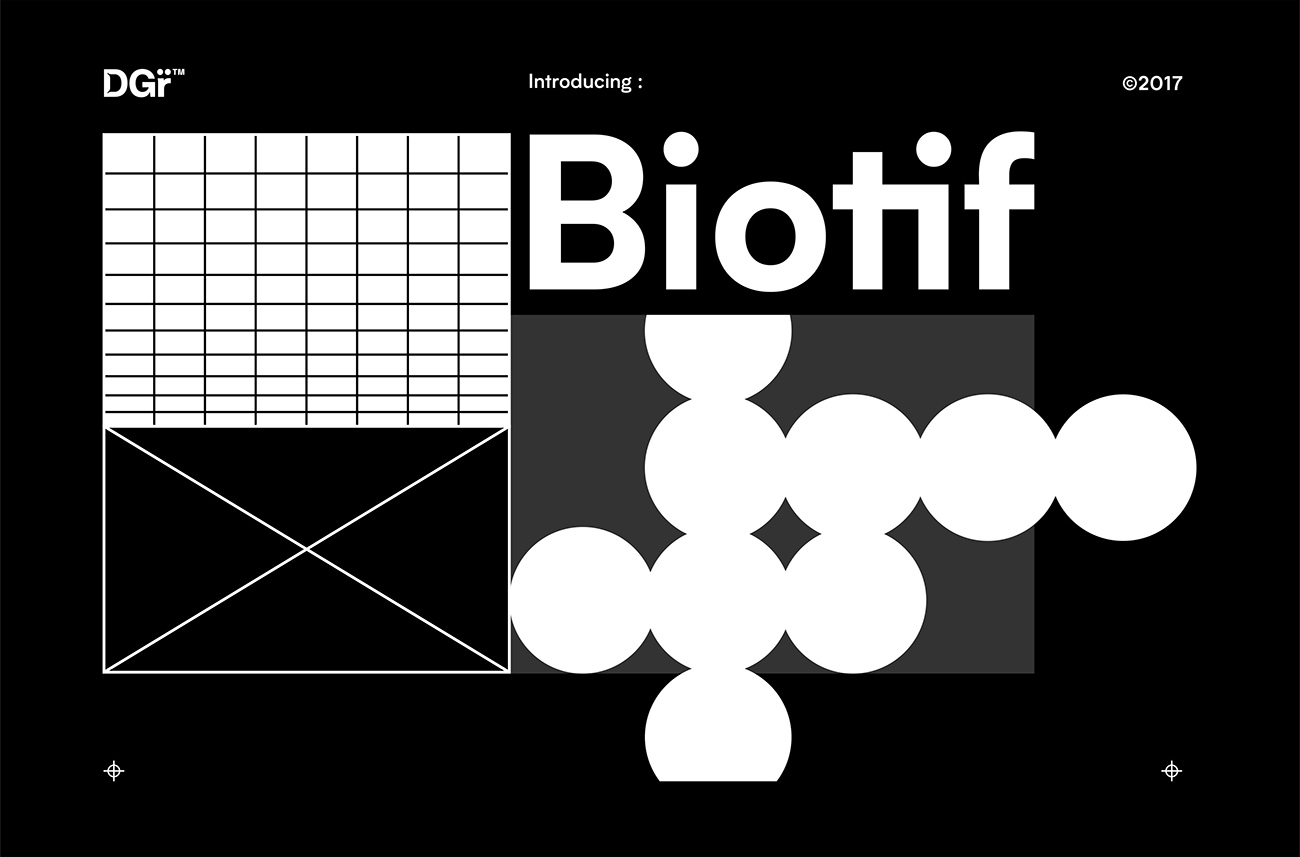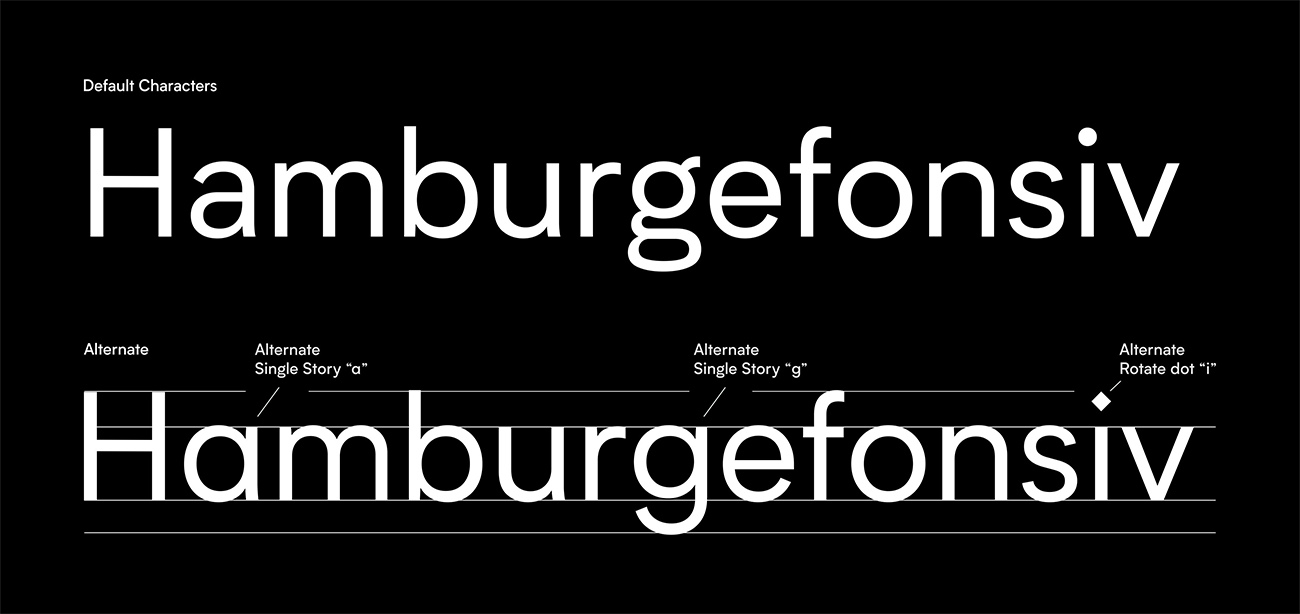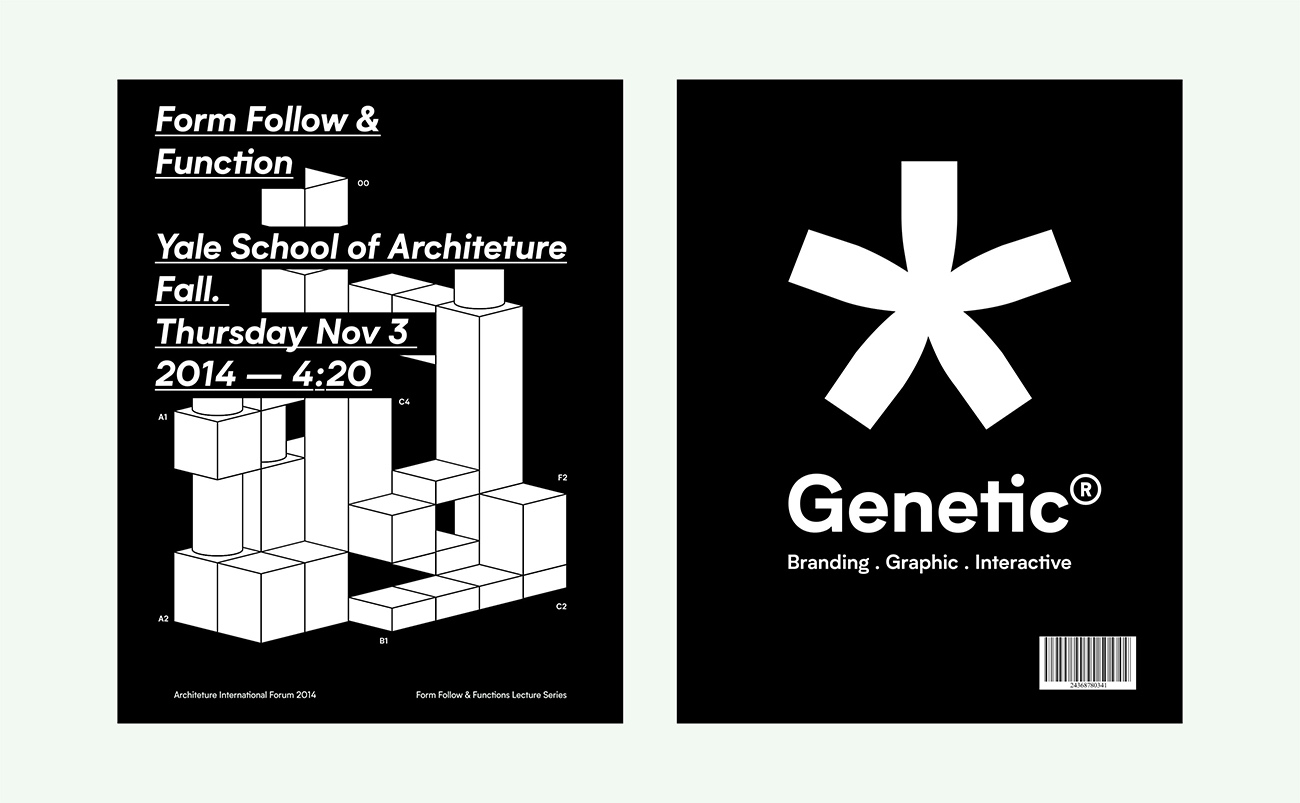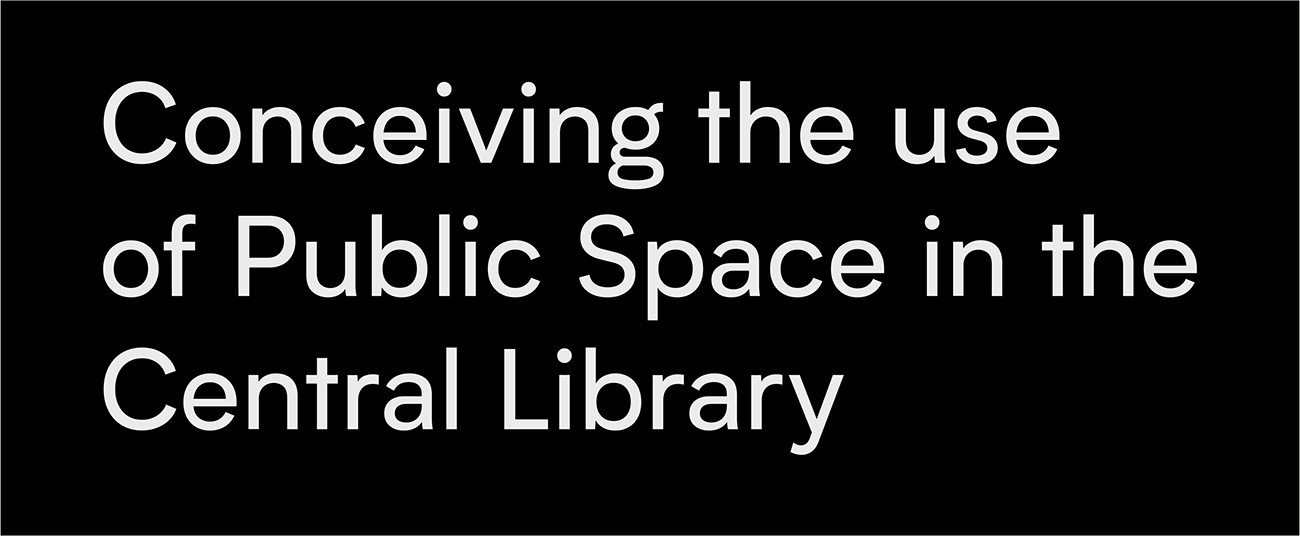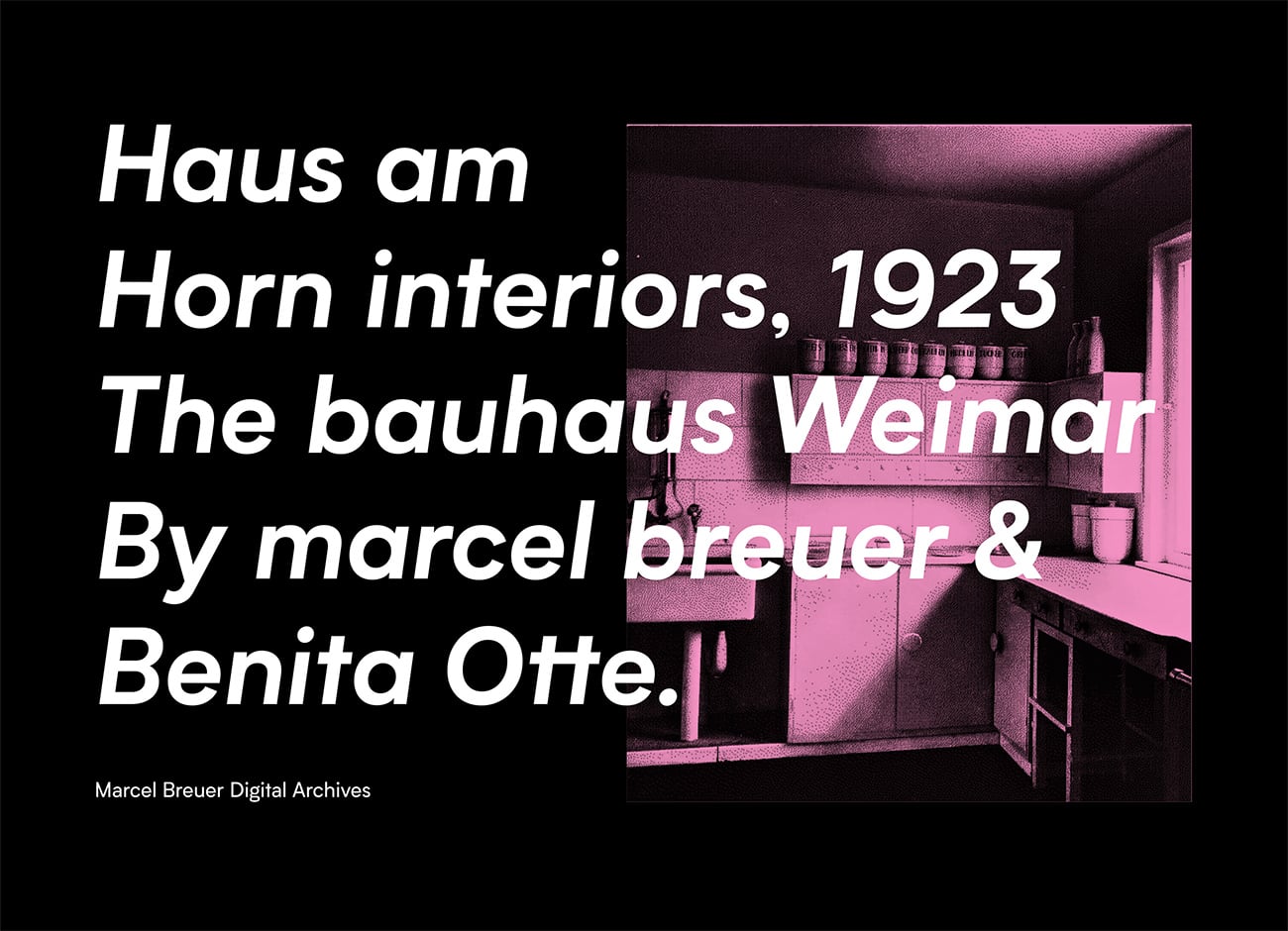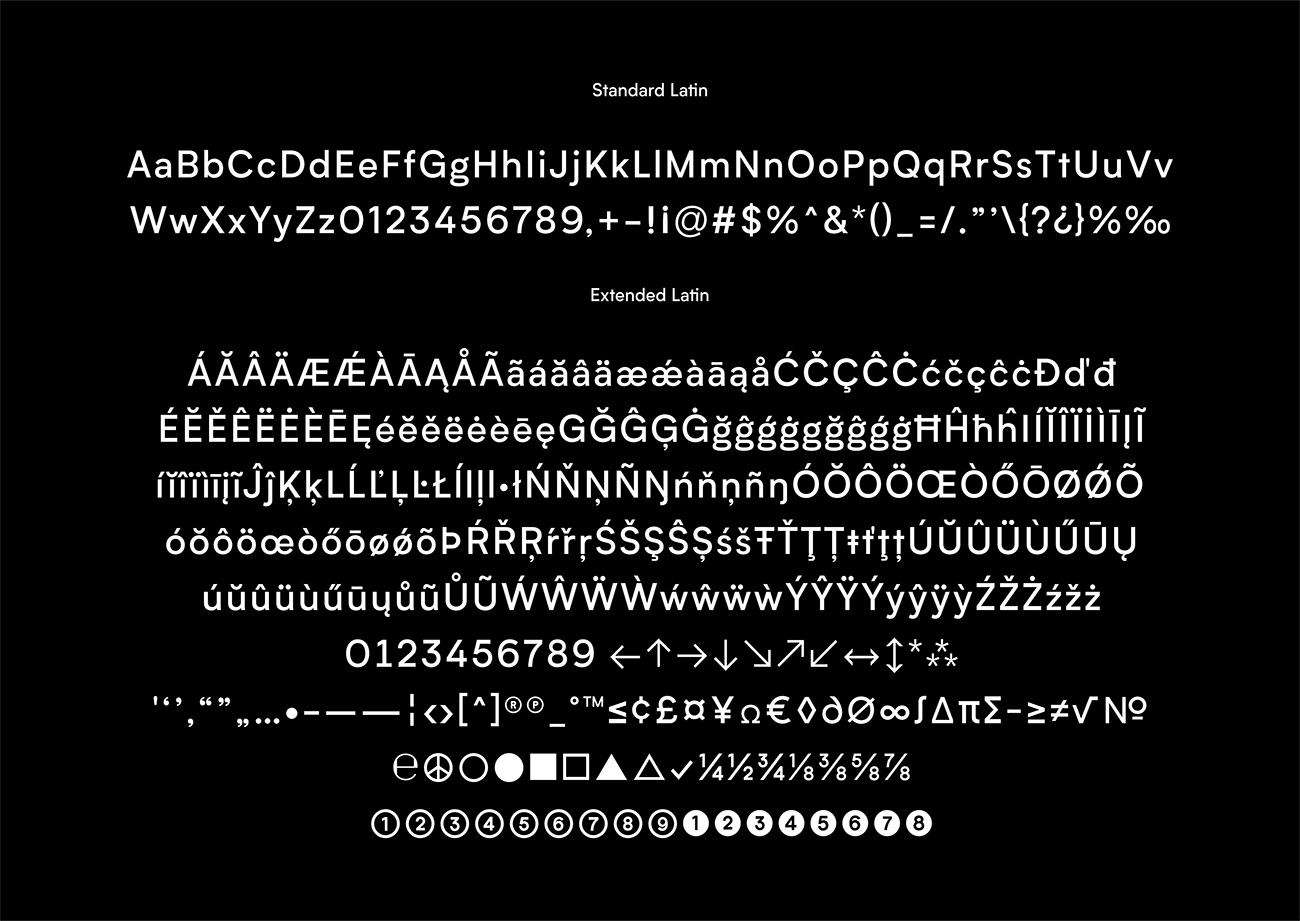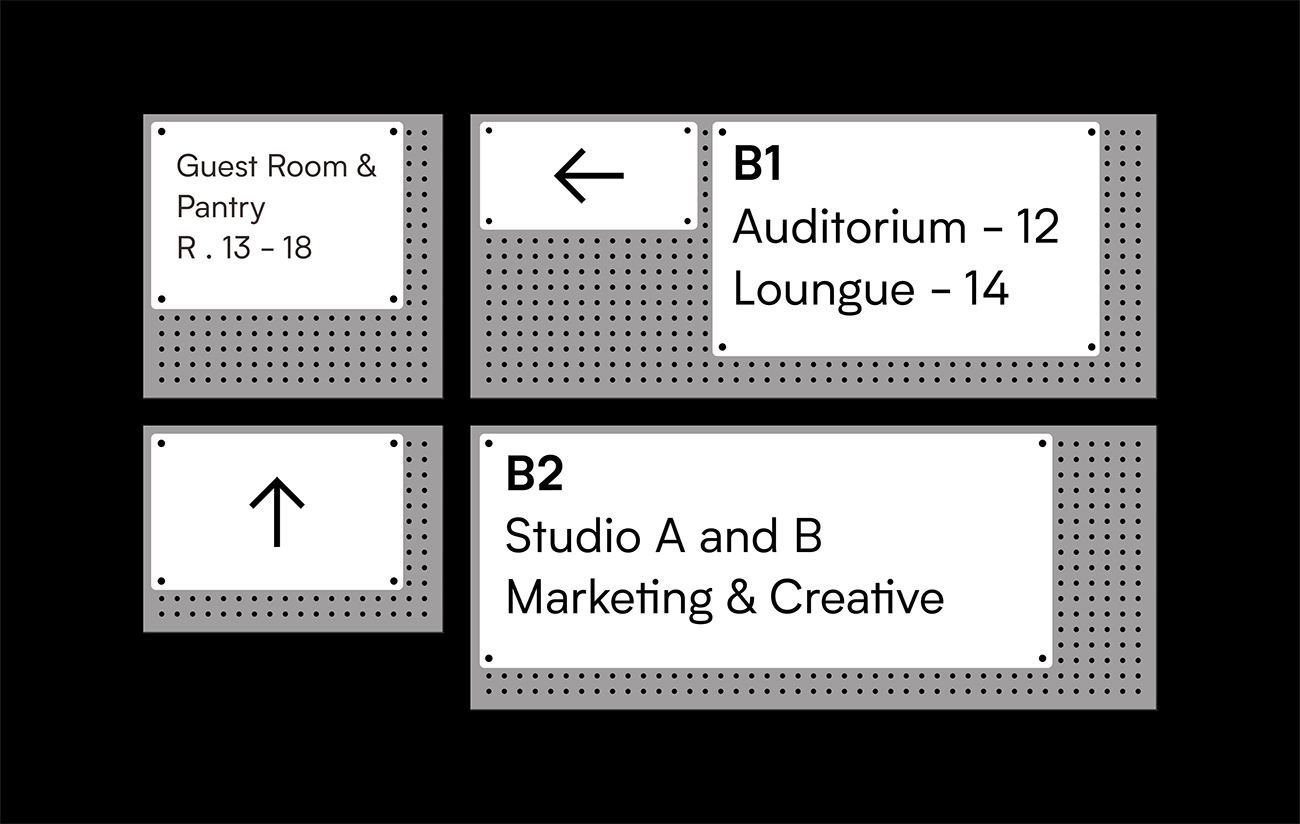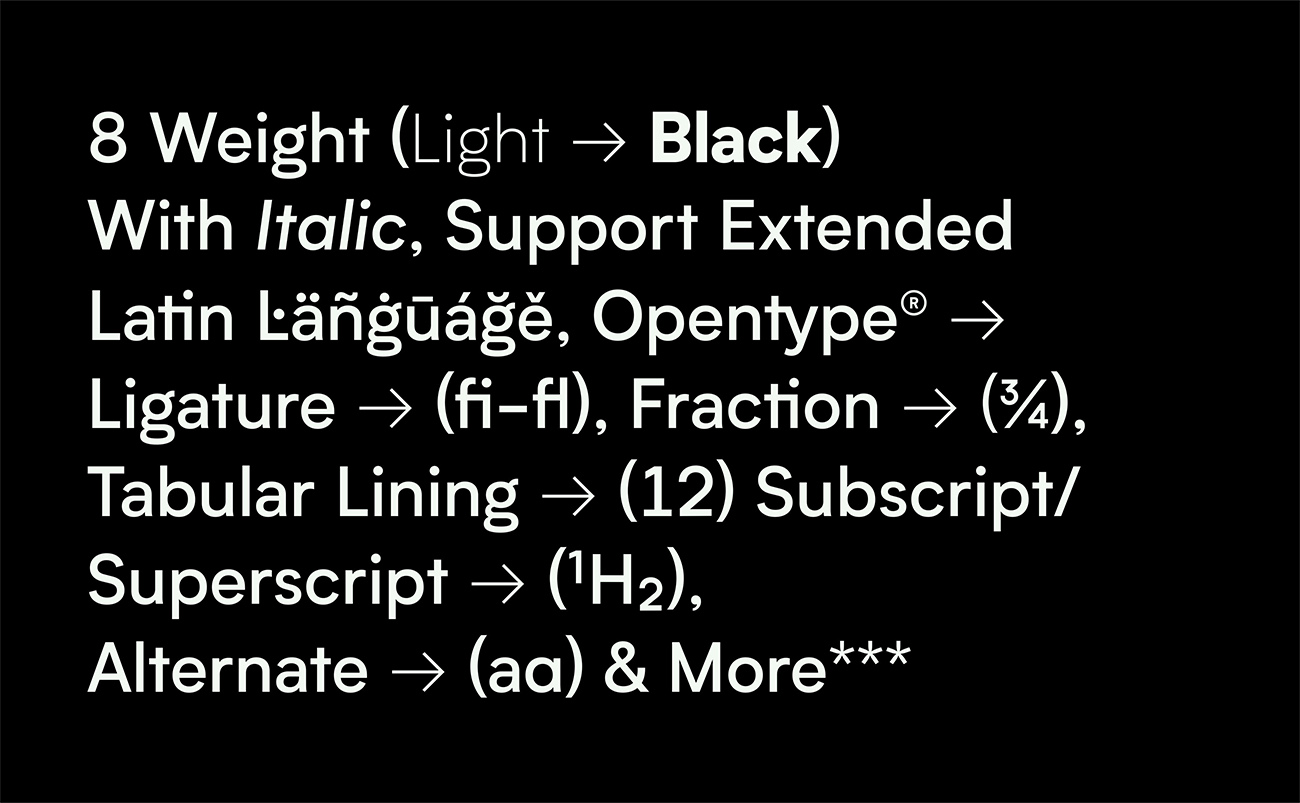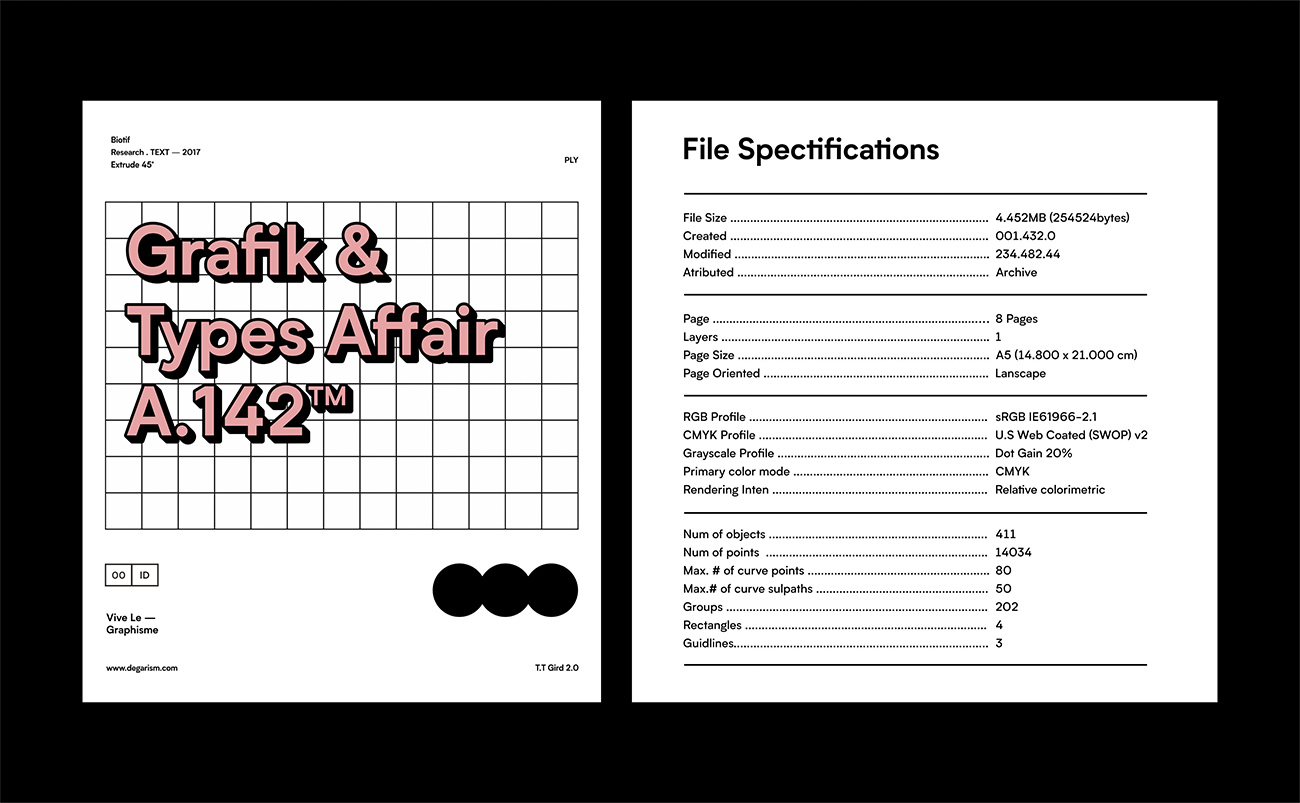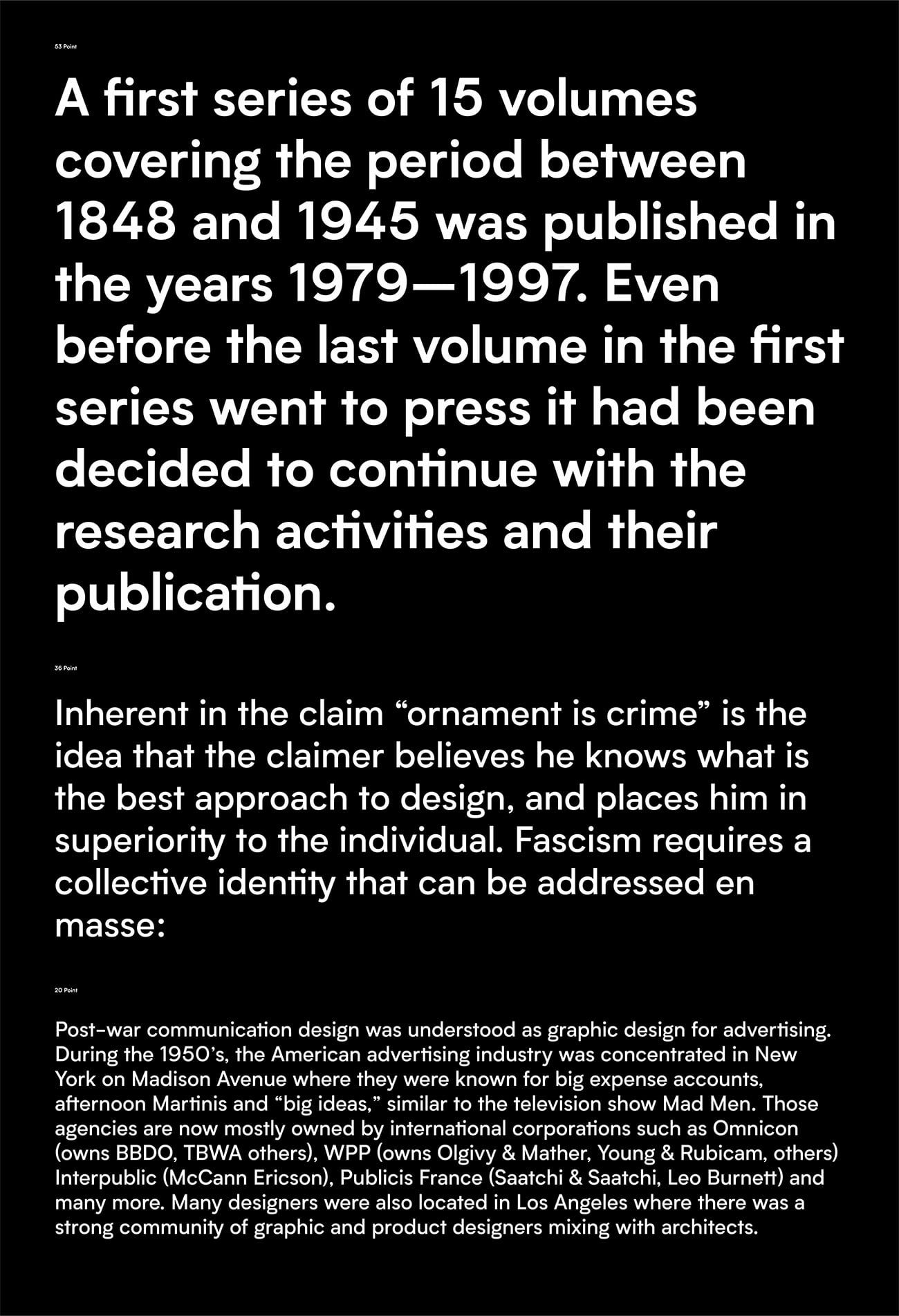
is a modern Grotesque sans serif with a geometric typical characters, Inspired by Modern Style & Industrial Era Typographic and Graphic design, comes in 16 Fonts +Italic from Light to Black, BIOTIF is was manually hinted and optimized in small sizes for screens./u00a0All the other characters can be accessed through the Opentype features. Fractions, Tabular Lining, Ligature, Alternate Characters, Circle Numbers, Symbols, arrow/u00a0and more./u00a0Of course support for Multi-Language (Latin Extended) Wester European, Central/u00a0European & South/u00a0European./u00a0Buy